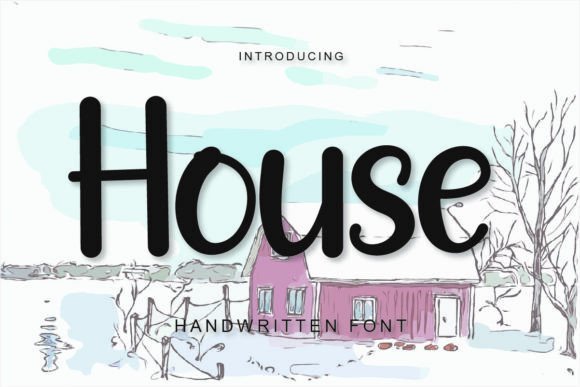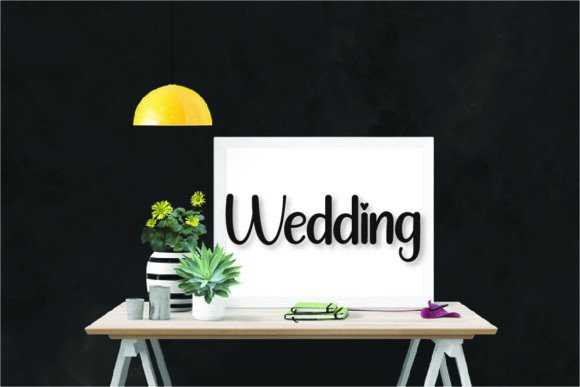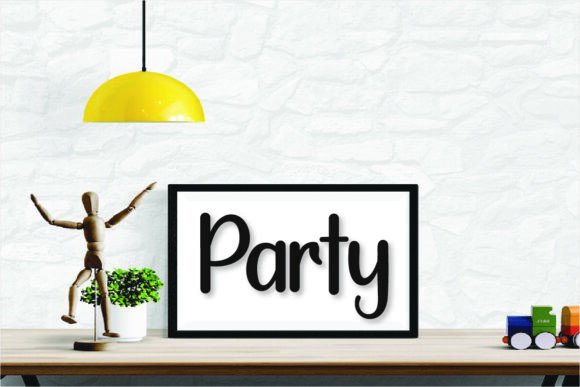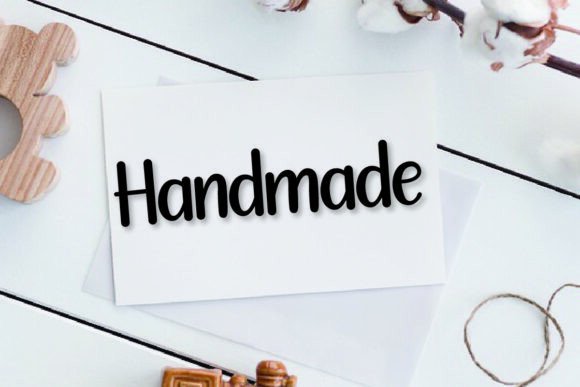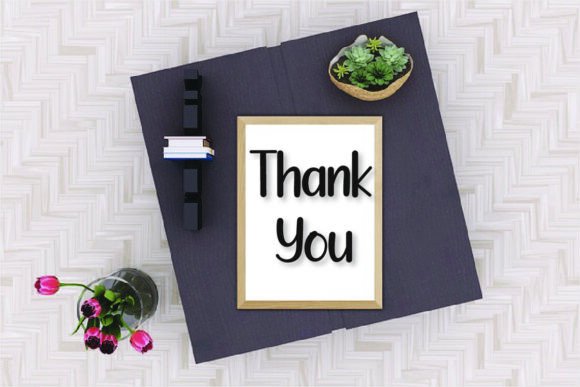
The Perfect Script for Making a Statement: House Font
You know that moment when you’re brainstorming ideas for a project and you need something that really pops? That’s when the perfect font can make all the difference. For designers, finding the right font can be a game-changer – it can elevate your design from good to great. And that’s exactly what the House Font does.
House is a bold, handwritten font that’s perfect for making a statement. Its strong, thick strokes give it a confident and playful feel that’s hard to resist. Whether you’re designing a logo, a poster, or a social media graphic, House Font is sure to grab attention and leave a lasting impression. As a valuable addition to any designer’s toolkit, House Font is a must-have for anyone looking to add some personality to their designs.
- Unique Characteristics: House Font features a clean and modern design, with subtle rounded edges and a friendly feel, making it suitable for a wide range of applications, including branding, advertising, and digital interfaces.
House Font Review
I recently had the chance to work with the House Font, and here’s my honest take on it.
- The House Font has a unique, modern feel to it. It’s perfect for creating a sleek and sophisticated design.
- The font is highly legible, making it great for body text and headings.
- The font family is quite extensive, offering a range of weights and styles to choose from.
- House Font is highly customizable, allowing designers to fine-tune the font to their specific needs.
- The font may not be the best choice for projects that require a lot of text. It can get a bit pricey for large-scale use.
- The font family can be overwhelming, making it difficult to choose the right style for the project.
- The font may not be compatible with older versions of certain software or operating systems.
Overall, I think the House Font is a great choice for designers who want to create a modern and sophisticated look. However, it may not be the best fit for every project. With a bit of planning and consideration, the House Font can be a valuable addition to any designer’s toolkit.
House Font is commonly used in various design applications, including:
- Social media graphics and advertising
- Flyers and brochures
- Business reports and presentations
- Newsletters and magazines
- Pair House Font with other fonts to create a unique and modern look.
- Use House Font to create bold and eye-catching headlines and titles.